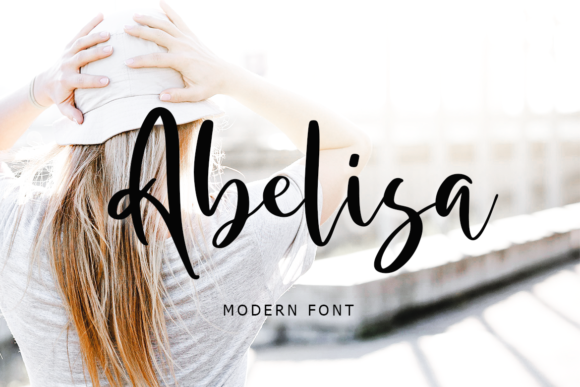
Introduction to Abelisa Font
Abelisa is a delicate and flowing handwritten font.
Fall in love with its elegant and versatile style and add it to each of your creative ideas It will bring your projects to the highest level.
Key Features of Abelisa Font